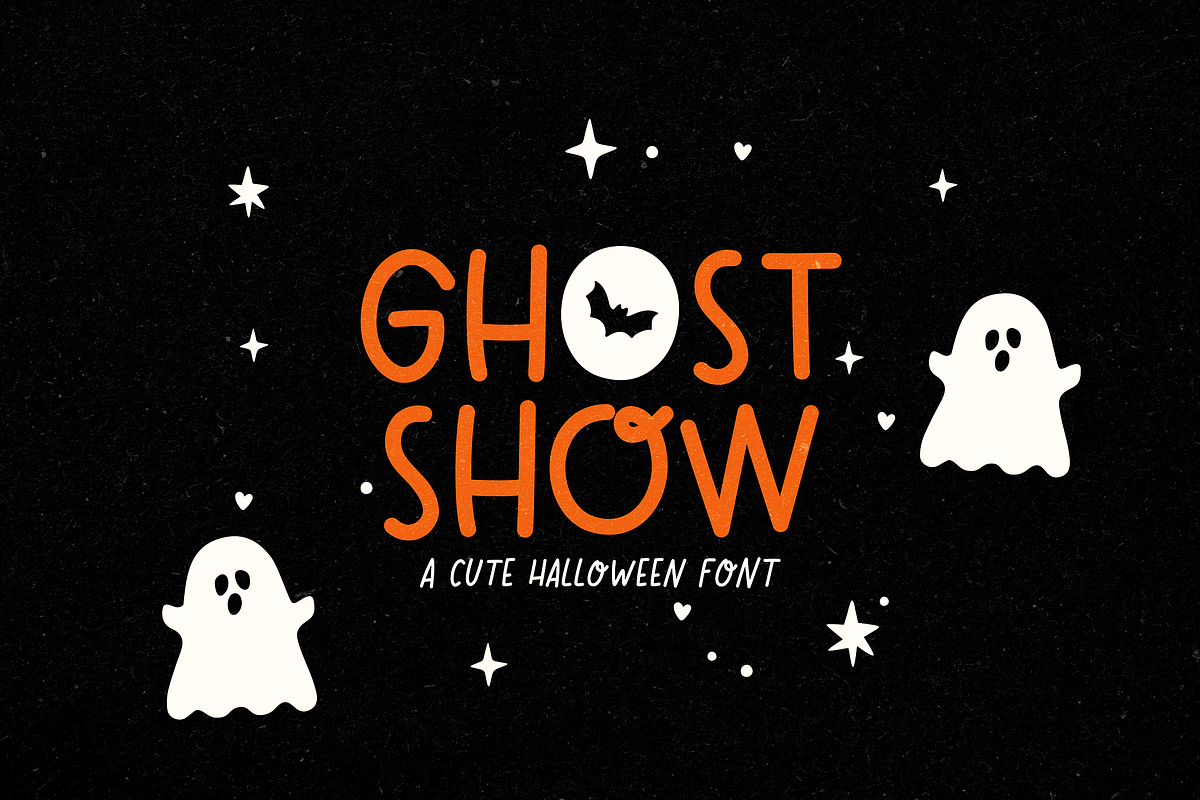
Please note, to use this font for commercial purposes, you must purchase the full version. GHOST SHOW is a spooky and dramatic font that brings a chilling, supernatural atmosphere to your designs. With its eerie letterforms and bold presence, this font is perfect for Halloween-themed projects, horror posters, spooky event invitations, and anything that needs a haunting touch. Whether you're designing for a horror film, a haunted house event, or a creepy logo, GHOST SHOW adds a thrilling, ghostly vibe to your work. Test it out and enjoy free download access for personal use. Experience the haunting power of GHOST SHOW Font Free Download before purchasing the commercial license. Bring a spooky flair to your designs with this chilling font.